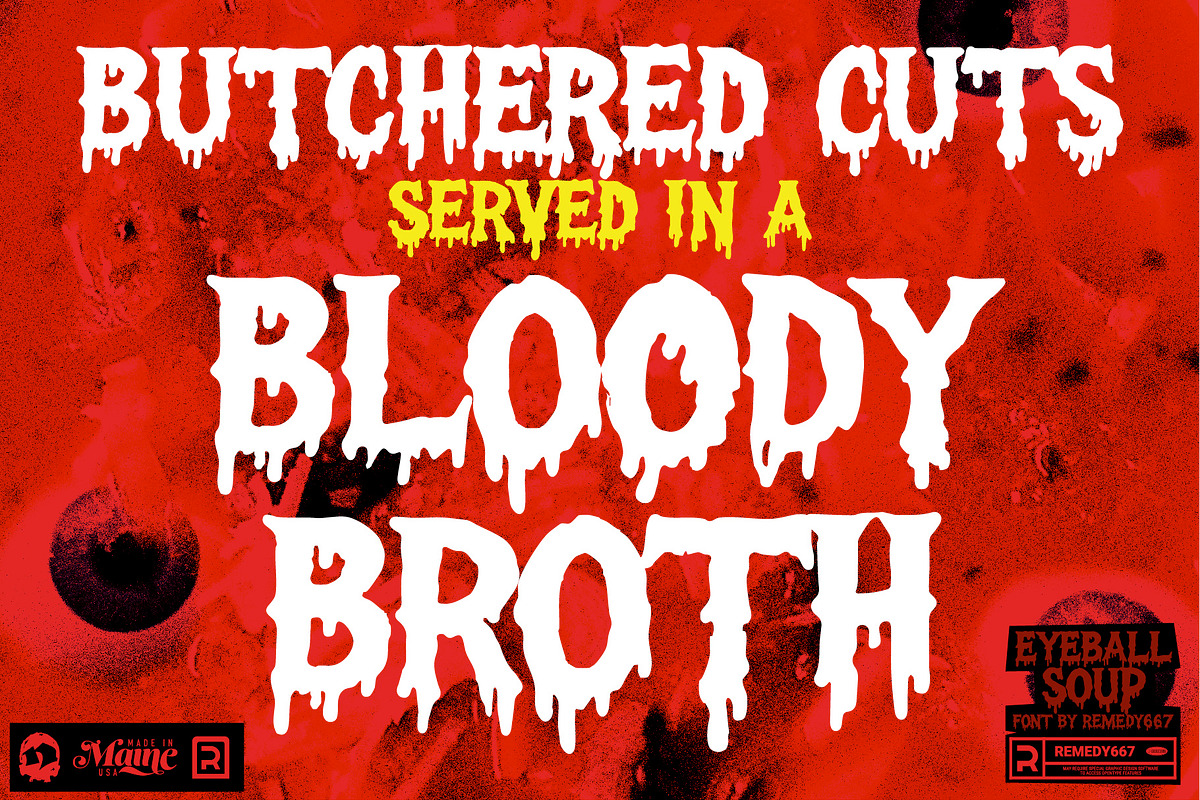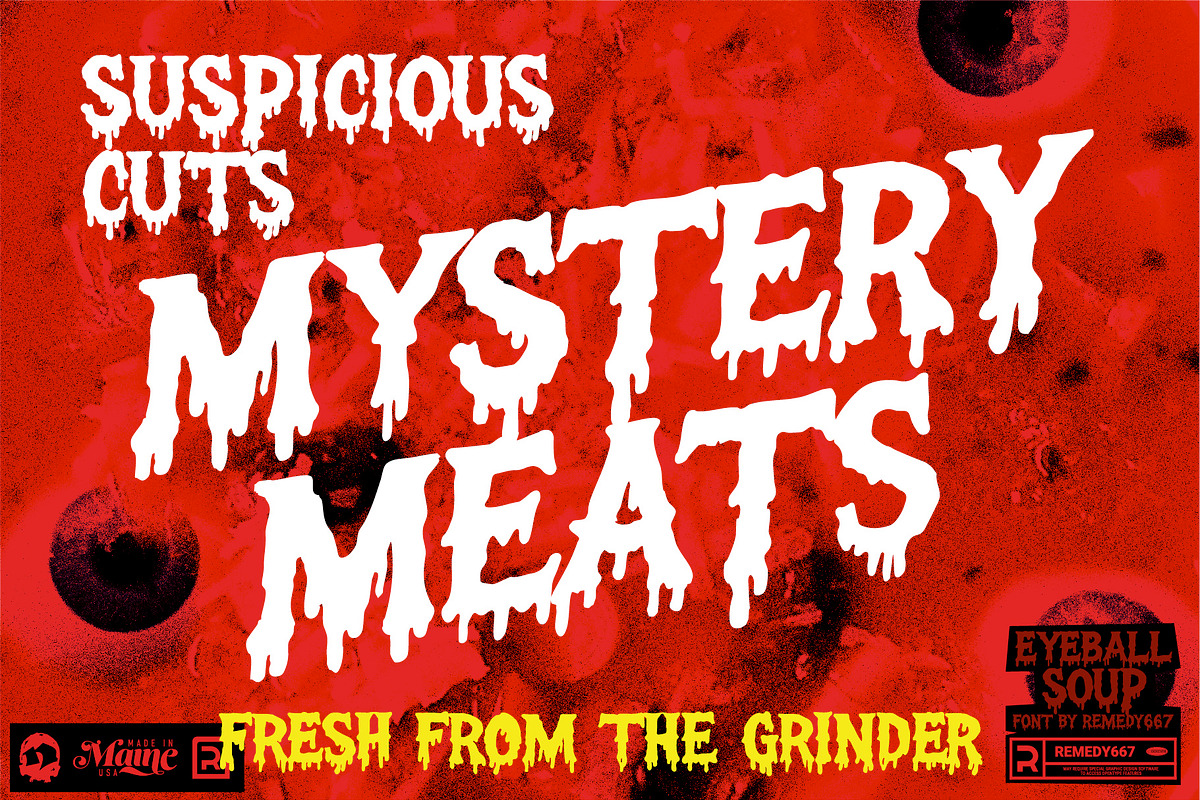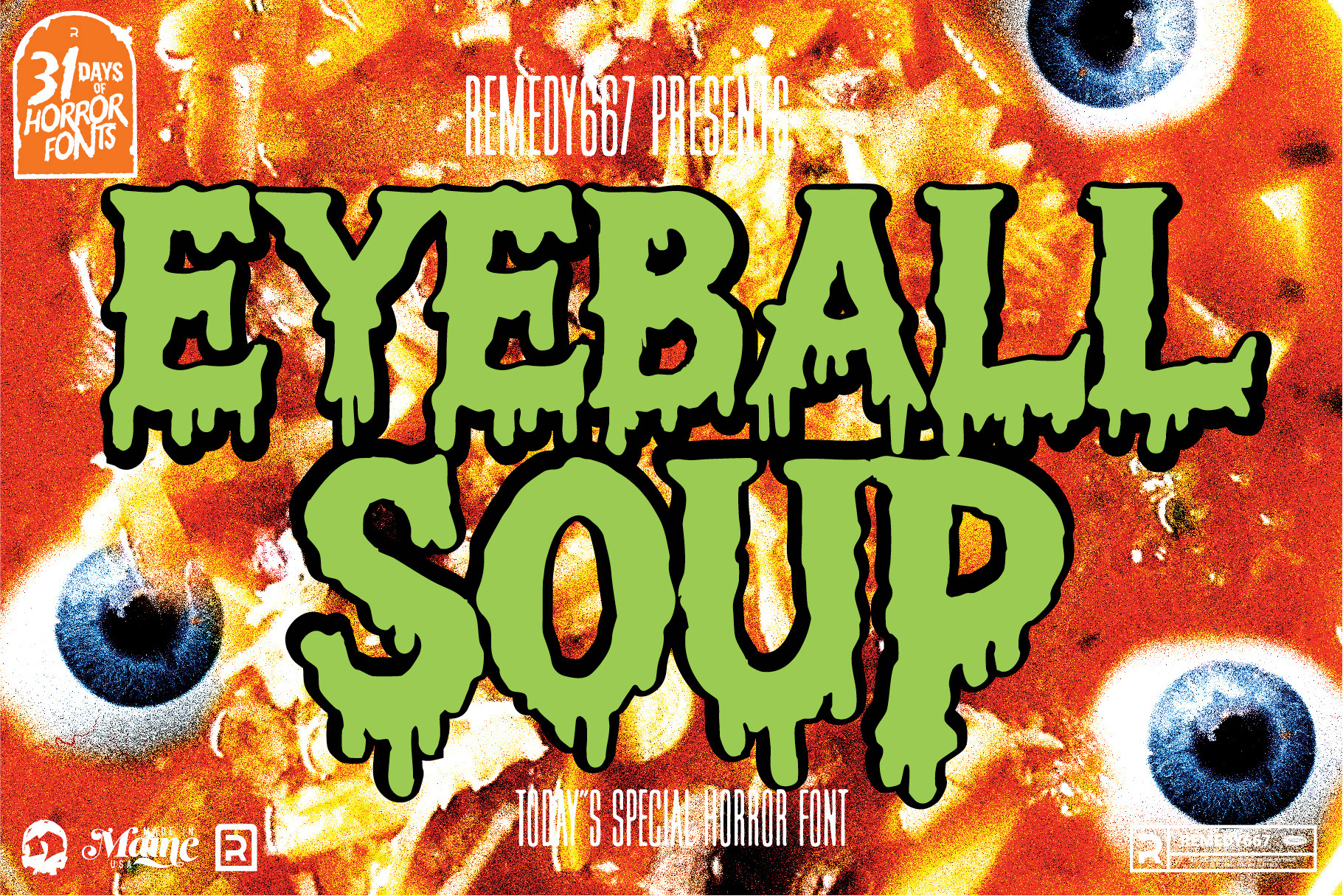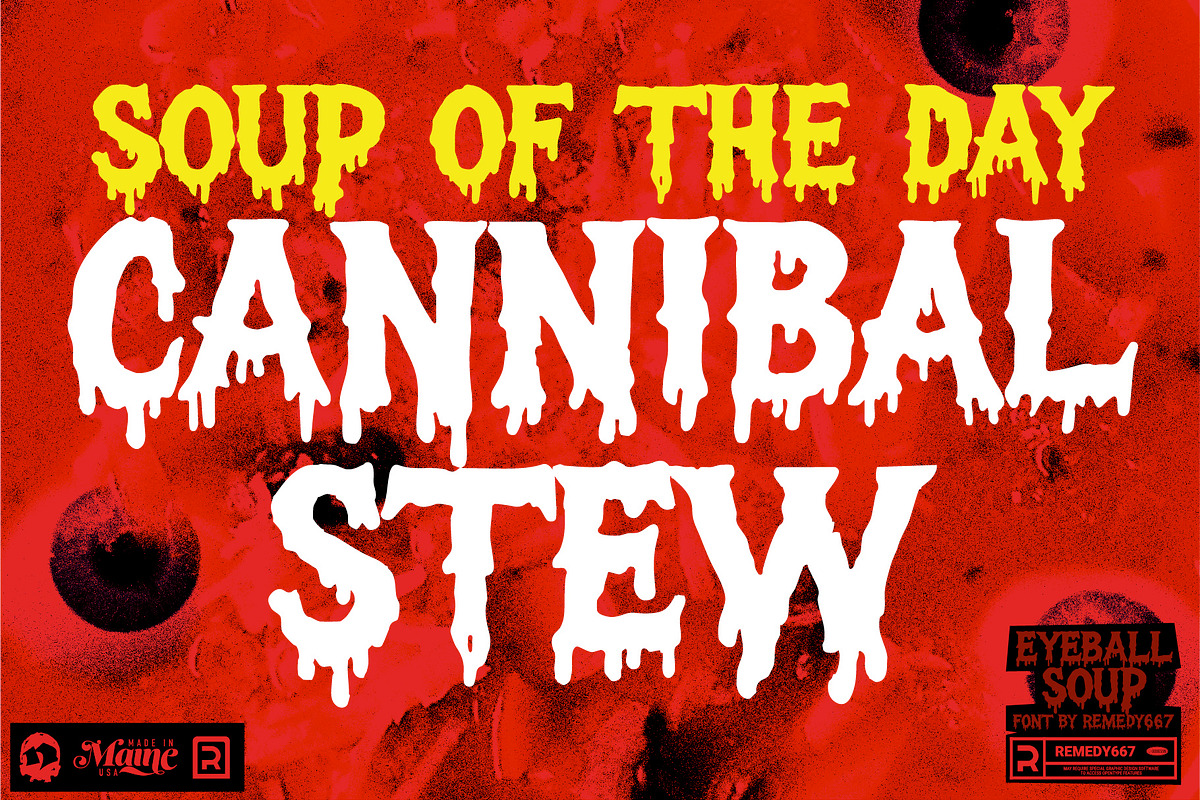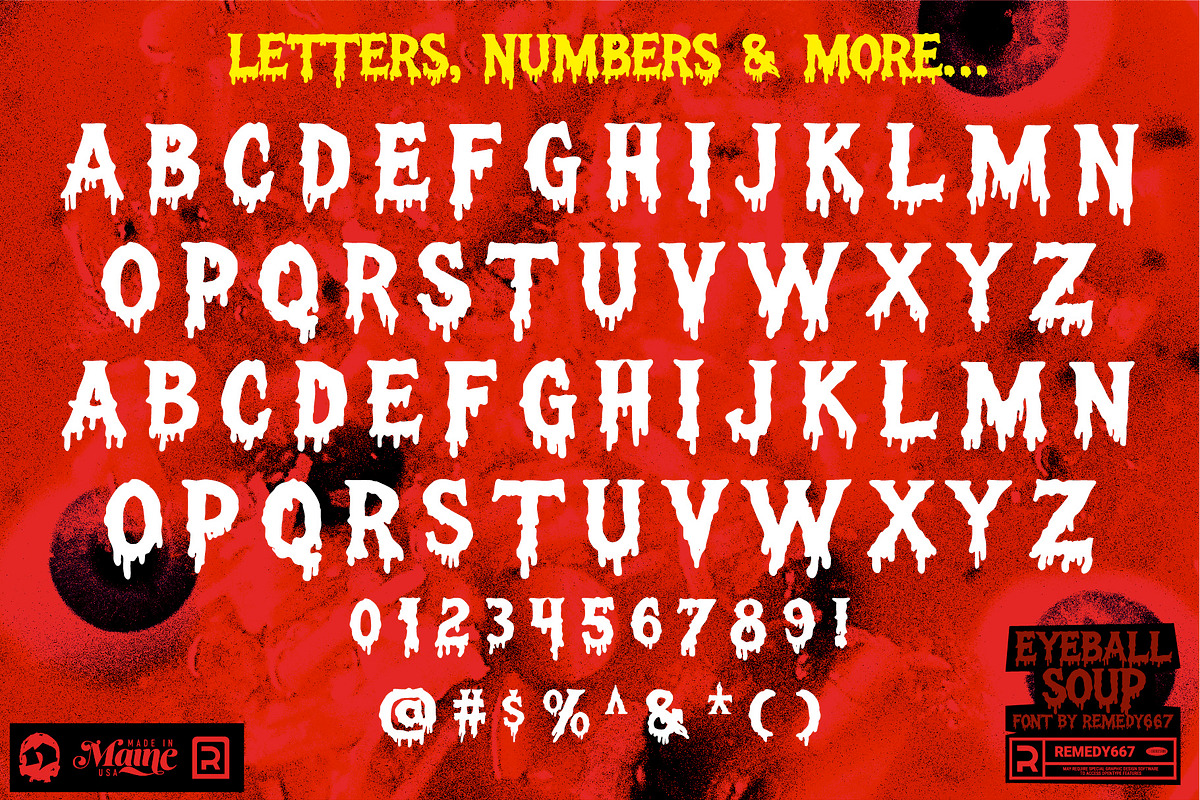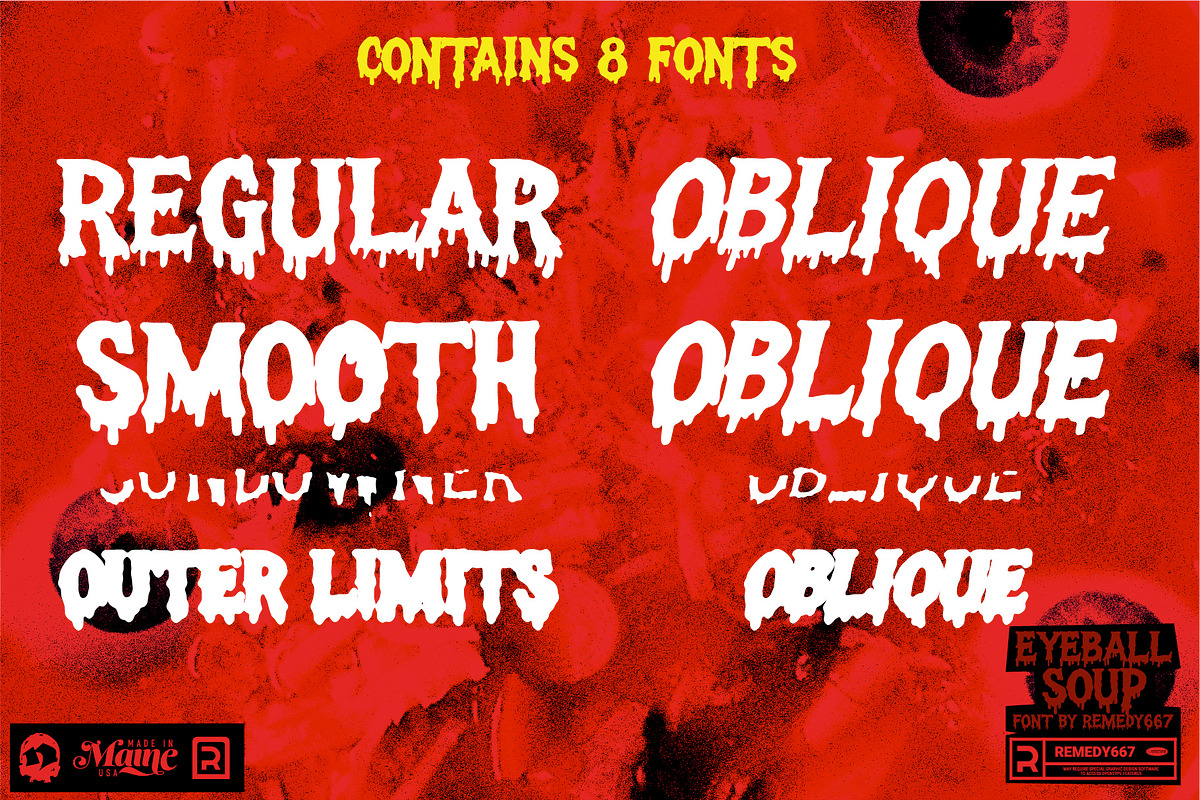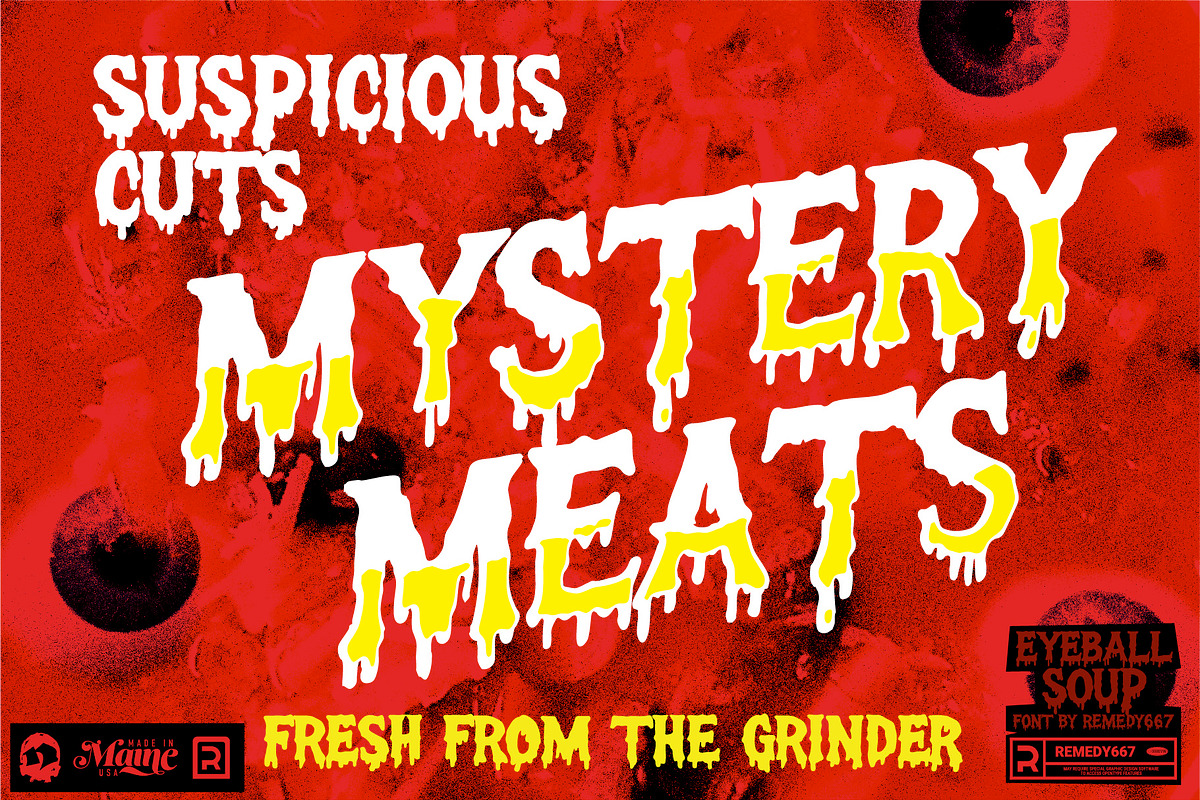
Eyeball Soup - Hand Drawn Drip Font
Heh heh heh… come closer, my little creeps, and take a gander at Eyeball Soup. A typeface so ghastly good, it’ll make your sockets spin! Inspired by the gloriously gory Shot-on-Video horror movie box art of the 1980s, this font oozes nostalgia straight from your VHS nightmares. It’s the perfect main course for any title that needs that grainy, grimy, blood-soaked charm of homemade horror.
So grab your camcorder, dim the lights, and stir in a little Eyeball Soup… the flavor of fear that’s sure to catch your eye!
- Inspired by 1980s SOV horror movie box art and titles
- Perfect for bold, eye-catching horror titles and poster design
- Full letter set with numbers and punctuation
- Includes multilingual support for international terror